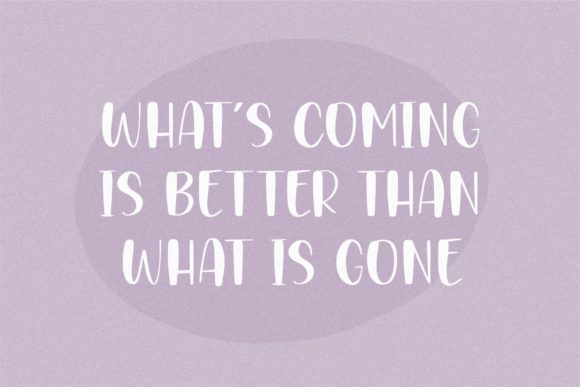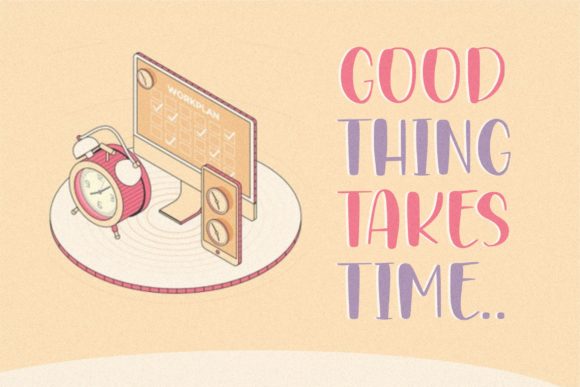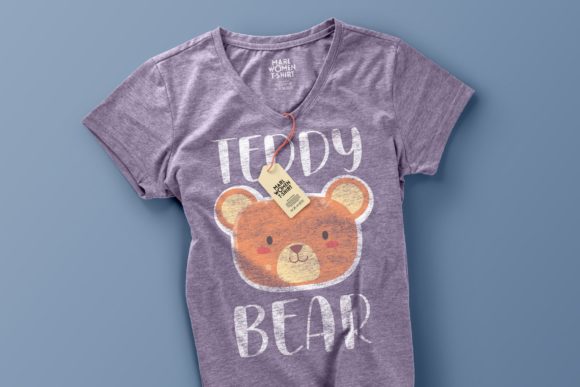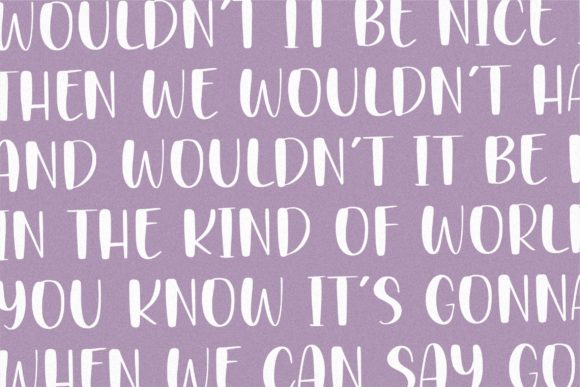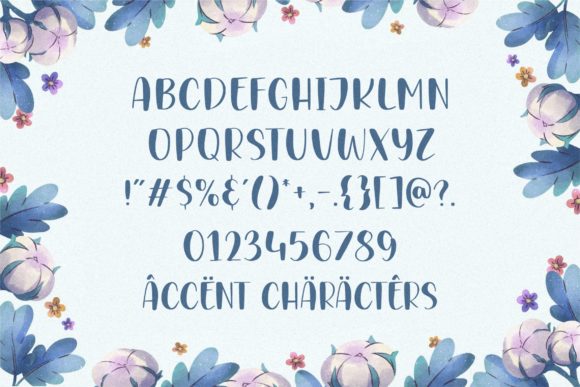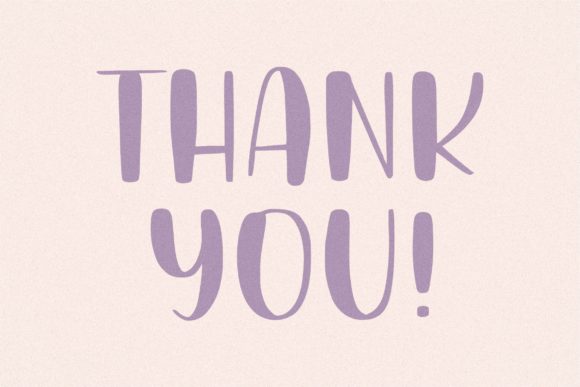
Babycakes Font: The Sweetest Addition to Your Design Collection
Are you looking for a font that exudes playfulness and authenticity? Do you want to add a touch of fun and whimsy to your designs? Look no further than Babycakes Font! This adorable display font is perfect for children’s activities, school projects, and any design that needs a dash of cuteness.
What is Babycakes Font?
Babycakes Font is a charming and chunky lettered font that embodies the spirit of playfulness and authenticity. Its unique and eye-catching design makes it an excellent choice for designers and crafters who want to add a personal touch to their work. Whether you’re creating invitations, posters, or social media graphics, Babycakes Font is sure to make your designs come alive!
Characteristics of Babycakes Font
So, what makes Babycakes Font so special? Here are some of its key characteristics:
- Cute and Fun: Babycakes Font is designed to be playful and fun, making it perfect for designs that require a lighthearted touch.
- Chunky Lettering: The font features chunky lettering that adds a tactile feel to your designs.
- Playful and Authentic: Babycakes Font embodies the spirit of playfulness and authenticity, making it ideal for children’s activities and school projects.
- Display Font: Babycakes Font is a display font, making it perfect for headlines, titles, and other attention-grabbing elements.
Uses for Babycakes Font
Babycakes Font is a versatile font that can be used in a variety of design projects. Here are some ideas to get you started:
- Children’s Activities: Use Babycakes Font to create fun and engaging materials for kids, such as worksheets, coloring pages, and activity sheets.
- School Projects: Add a touch of personality to school projects, such as posters, presentations, and reports.
- Invitations: Use Babycakes Font to create adorable invitations for birthday parties, baby showers, and other celebrations.
- Social Media Graphics: Add a playful touch to your social media graphics, such as Facebook posts, Instagram stories, and Twitter headers.
Tips for Using Babycakes Font
Here are some tips for getting the most out of Babycakes Font:
- Use it sparingly: Babycakes Font is a bold and attention-grabbing font, so use it sparingly to avoid overwhelming your design.
- Pair it with other fonts: Experiment with pairing Babycakes Font with other fonts to create a unique and visually appealing design.
- Experiment with colors: Babycakes Font looks great in bright and bold colors, so don’t be afraid to experiment with different color schemes.
In conclusion, Babycakes Font is a delightful and charming font that is sure to add a touch of playfulness and authenticity to your designs. Its chunky lettering and cute design make it perfect for children’s activities, school projects, and any design that needs a dash of fun. So why not give Babycakes Font a try and see how it can bring your designs to life?